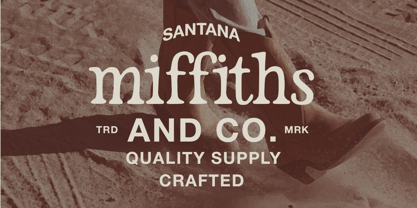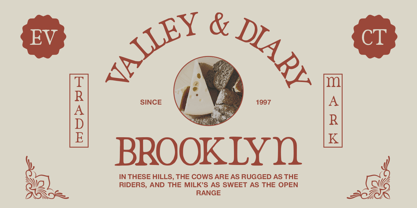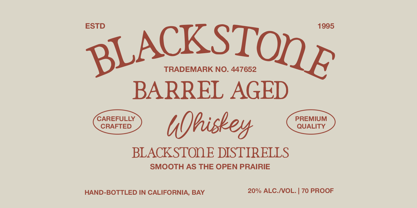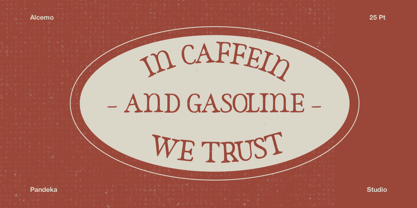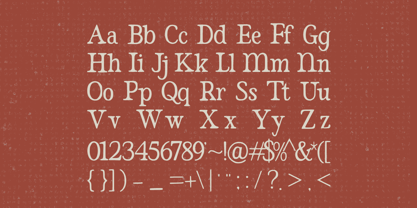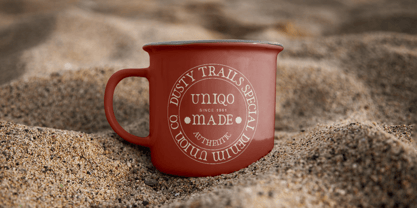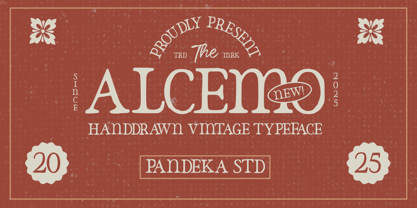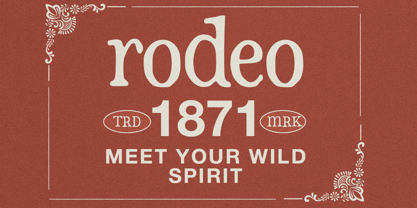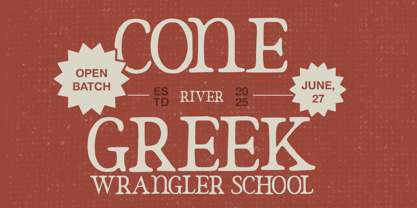
Alcemo
Die Schriftfamilie Alcemo wurde von Sagara Nararya entworfen und von Pandeka Studio veröffentlicht. Alcemo enthält 1 Stile.
Alcemo – Hand-Drawn Vintage Serif
Alcemo is a hand-drawn serif typeface with a classic yet rustic aesthetic. Its carefully crafted letterforms and subtle imperfections bring an authentic vintage feel, perfect for branding, packaging, posters, editorial layouts, and signage. With its bold and timeless design, Alcemo adds warmth and character to any creative project.
• Full Character Set: Uppercase, lowercase, numbers, symbols, and punctuation